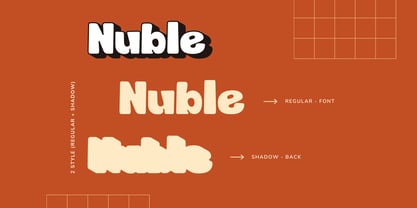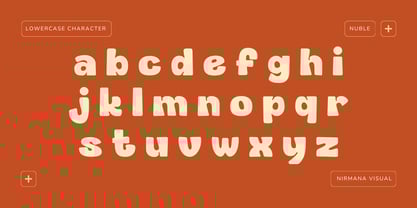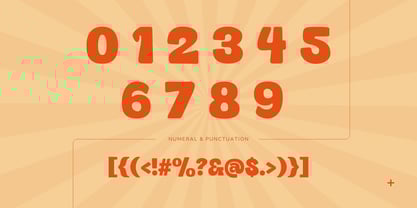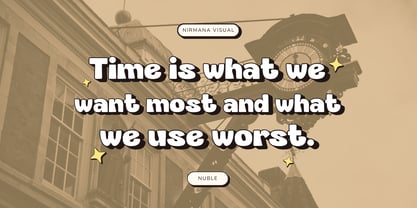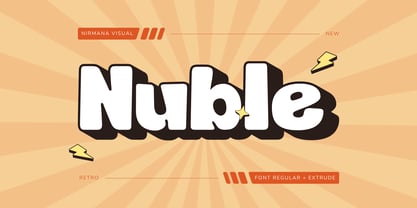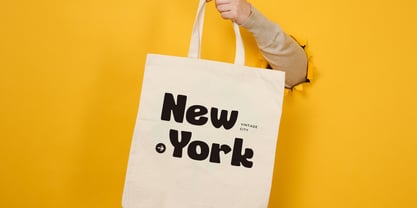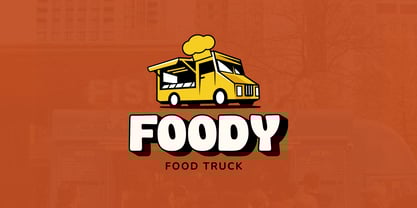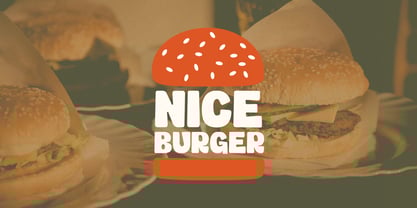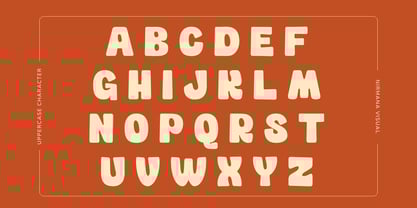
Nuble Retro
by Nirmana Visual
The Nuble Retro Font Family was designed by Sigit Dwipa and published by Nirmana Visual. Nuble Retro contains 2 styles and family package options. More about this family
Nuble is a bold and rounded sans display font with a nostalgic retro vibe. Designed for eye-catching headlines, logos, and branding, Nuble combines smooth curves with strong geometric shapes for a modern yet vintage appeal. The font comes in two styles: Regular, offering a clean and classic look, and Extrude, adding depth for a dynamic 3D effect. Inspired by mid-century signage and playful typography, Nuble is perfect for posters, packaging, and digital projects that need a fun, retro touch.
Designers: Sigit Dwipa
Foundry: Nirmana Visual